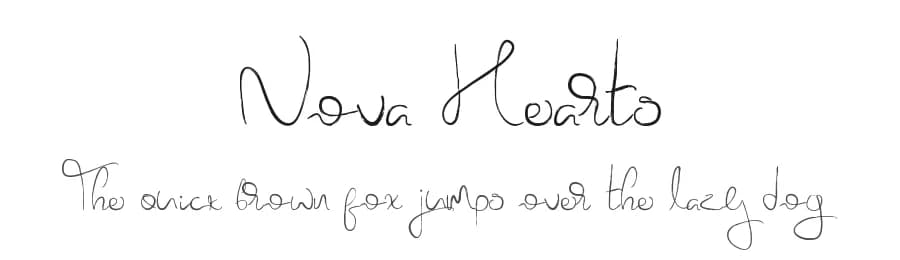
About Nova Hearts Font
Nova Hearts is a script & handwritten font designed by Zansari. It includes 236 glyphs, a regular weight, TTF (TrueType) format, and 209 languages. Nova Hearts is free to download; check the license details on this page before commercial use. Script & handwritten fonts like Nova Hearts work best for wedding invitations, greeting cards, signatures, and elegant branding.
Nova Hearts Font is a script font that shines as a display or heading face. Pair it with a clean sans-serif or serif font for body text β the contrast creates a clear hierarchy while the two styles stay balanced and easy to read.
Nova Hearts Font